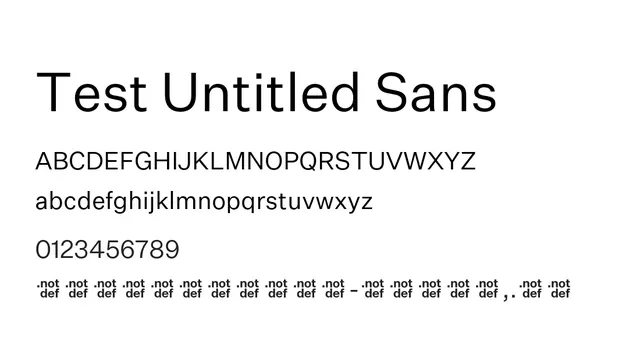
Test Untitled Sans
A clean neo-grotesque sans-serif with uniform strokes and contemporary proportions for modern digital and corporate applications.
Excellent for UI design, web interfaces, and digital product branding. The extensive weight range (Light to Black) provides flexibility for hierarchy and emphasis in screen-based designs.
Pair with a serif like Tiempos Text or Untitled Serif for editorial contrast, or use alone for a unified modern aesthetic.